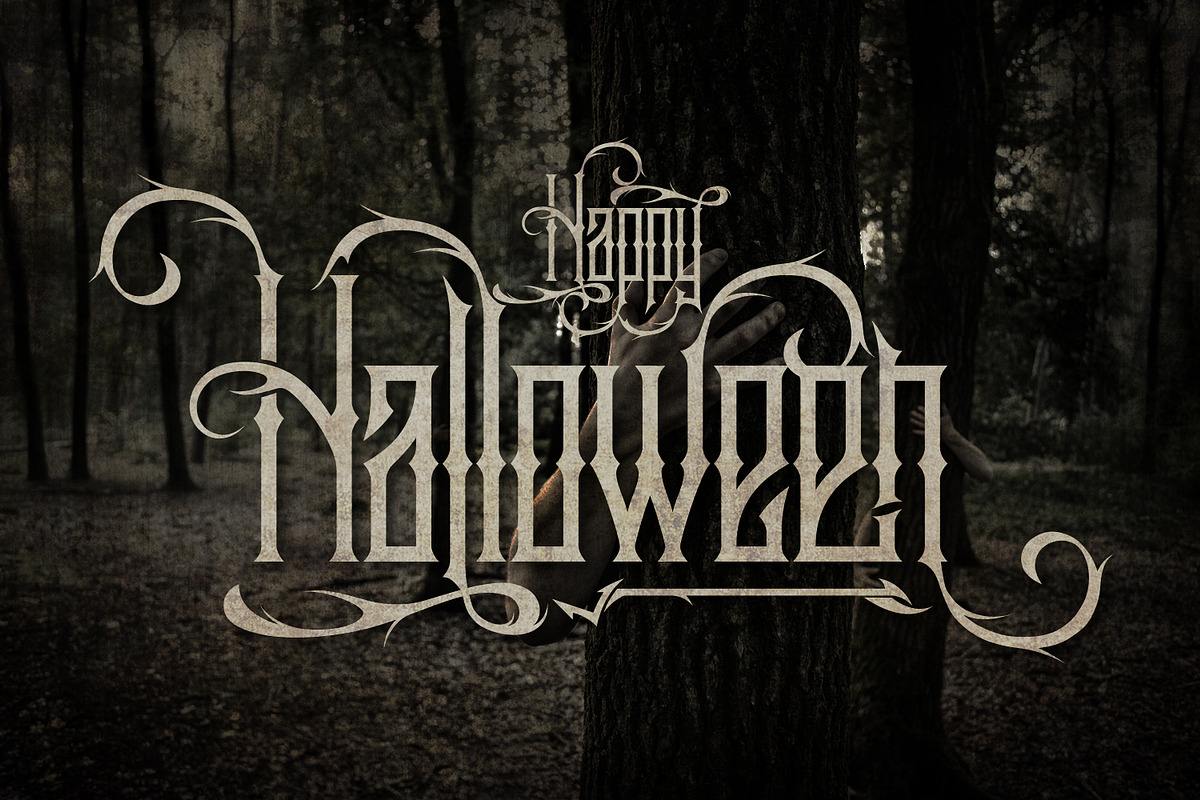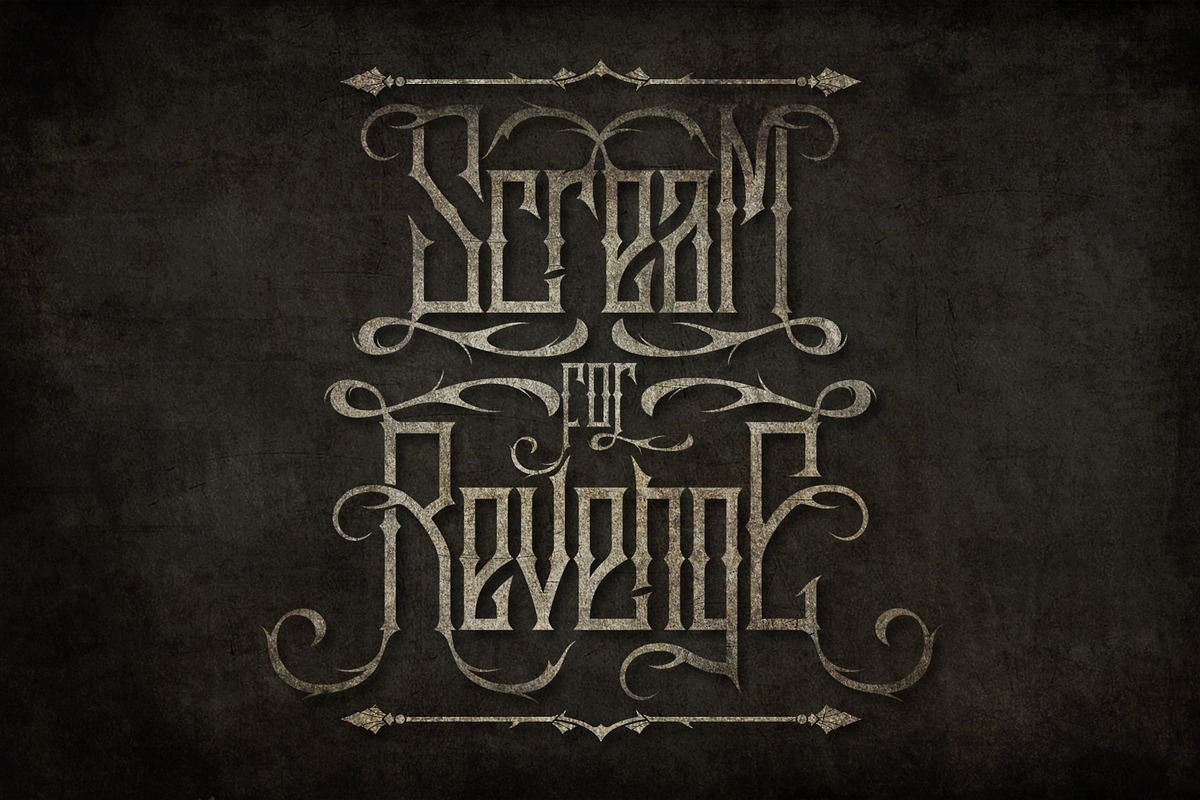
Sadis Typeface+Extras
Introducing Sadis Typeface !
Sadis is a Blackletter font inspired by Gothic look . Try to mix the uppercase and lowercase with ( standard ligature - swash - stylistic alternates ) to find the suitable layout for your designs.
Character Set A-Z (Uppercase & Lowercase)
Numerals & Punctuations
Accents (Multilingual characters)
Standard Ligature
Swashes
ss01, ss02, ss03, ss04,